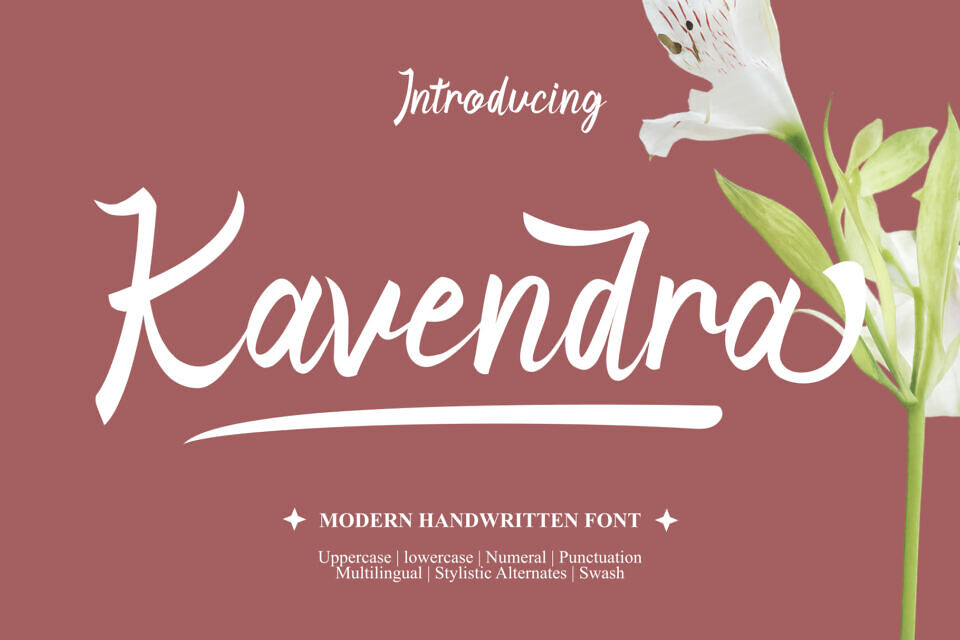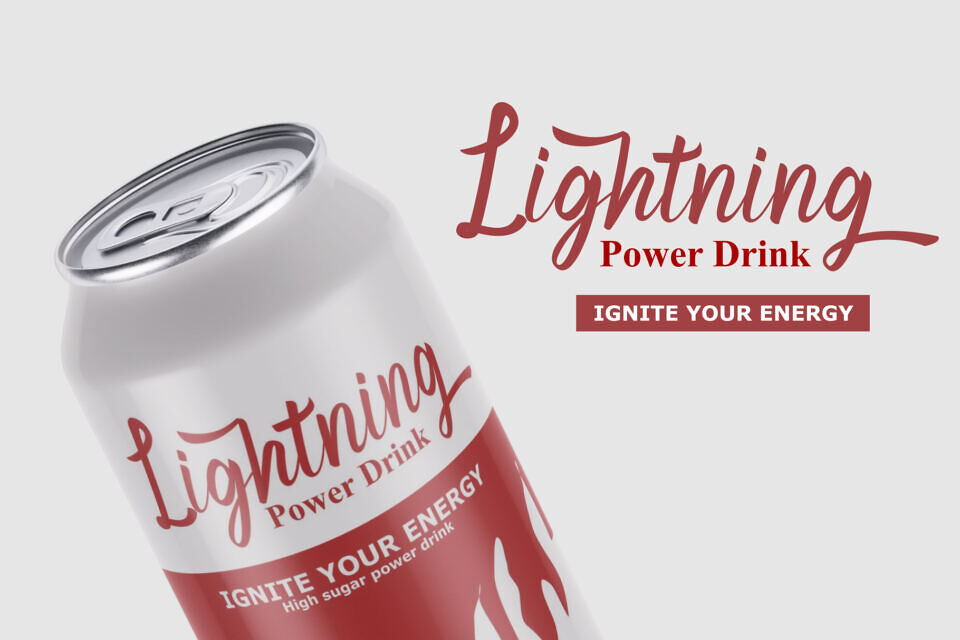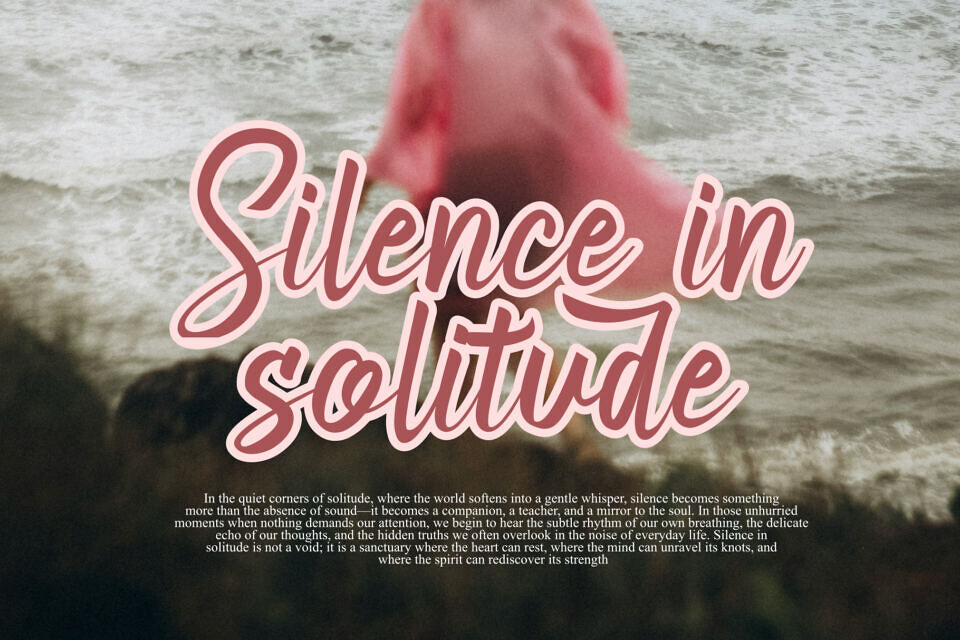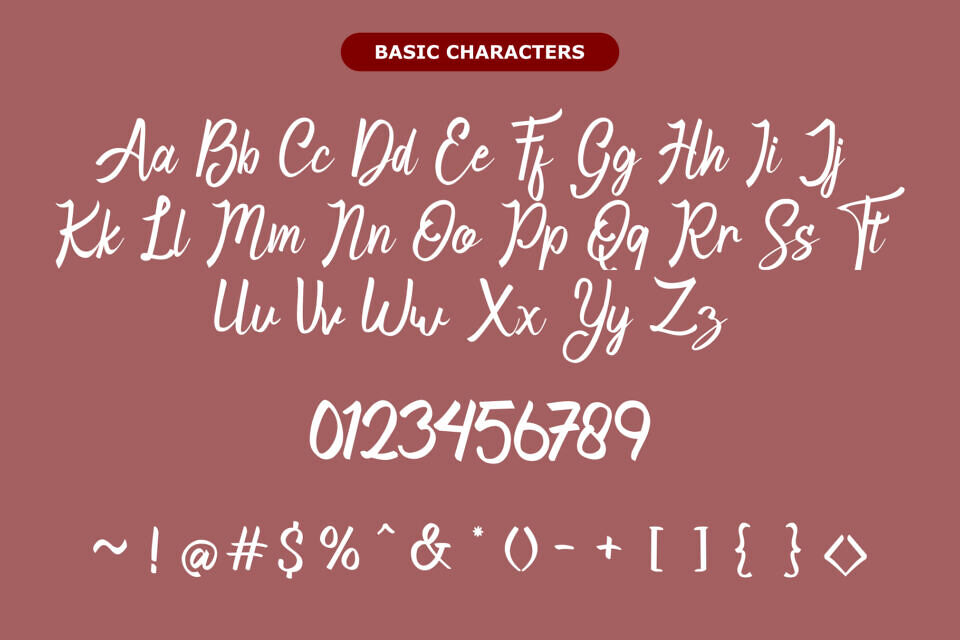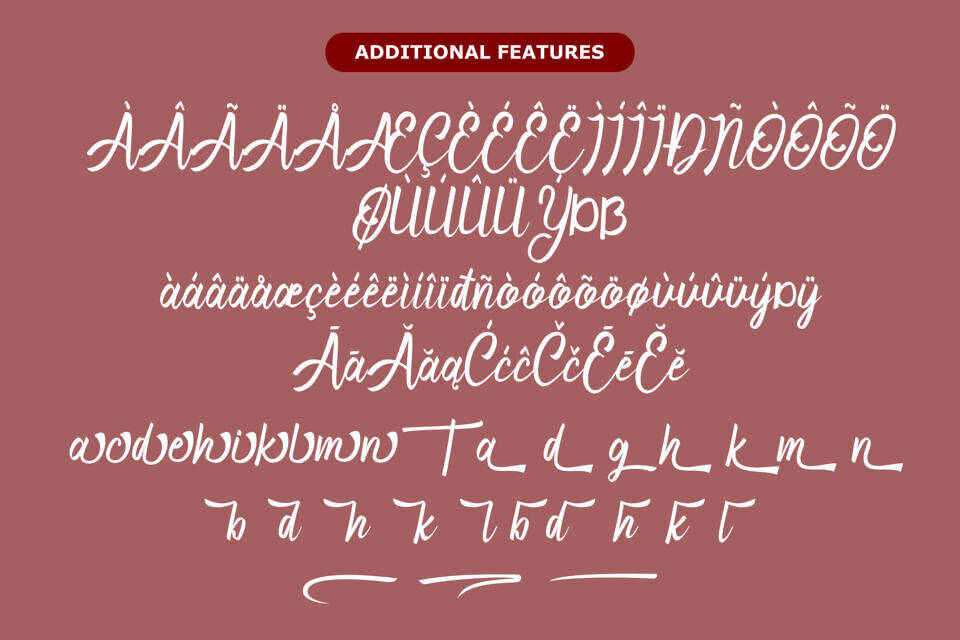
Kavendra Font
Kavendra is a script font characterized by its fluid, handwritten aesthetics. This stylish typeface features a thick, natural stroke variation that mimics organic calligraphy, making it perfect for eye-catching logos, wedding invitations, and social media headers.
The font includes a complete set of upper and lowercase characters, numerals, and punctuation. Additionally, Kavendra offers extensive multilingual support with accented characters and decorative swashes to add a custom flair to your typography projects.